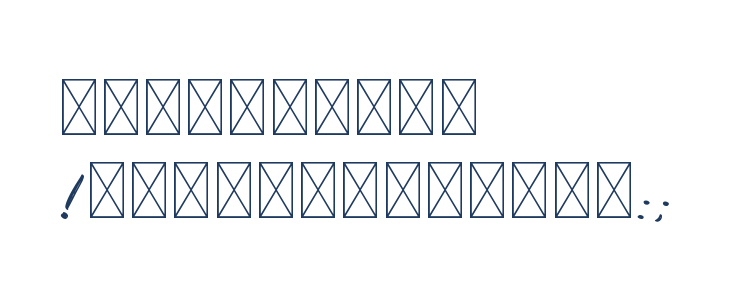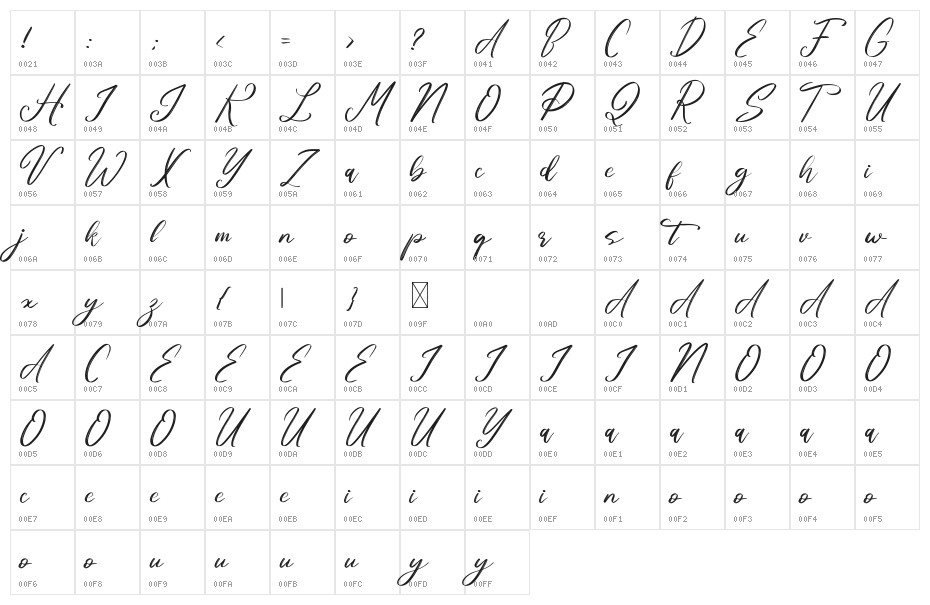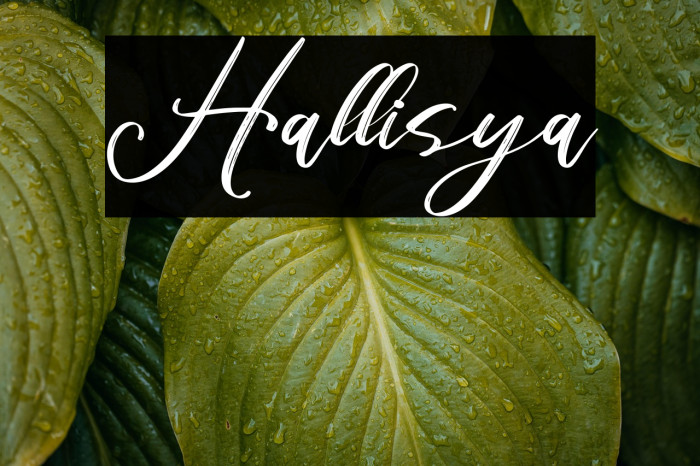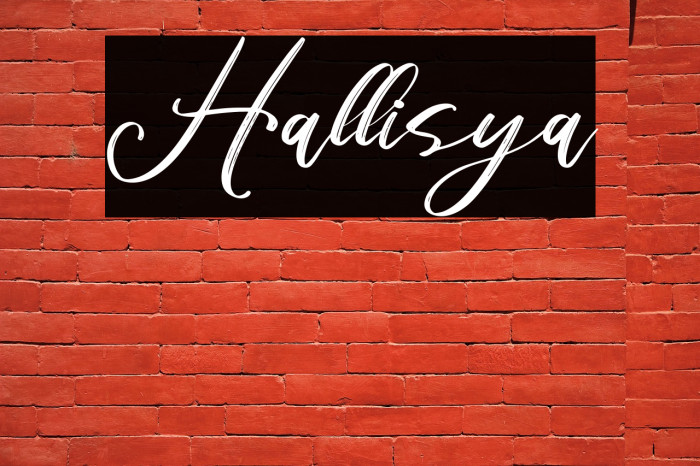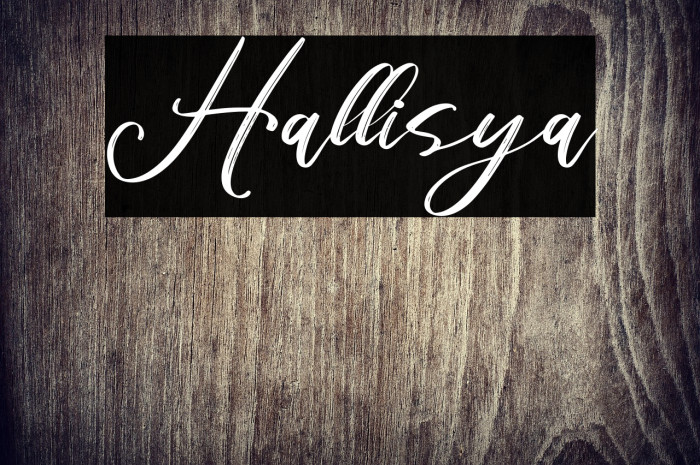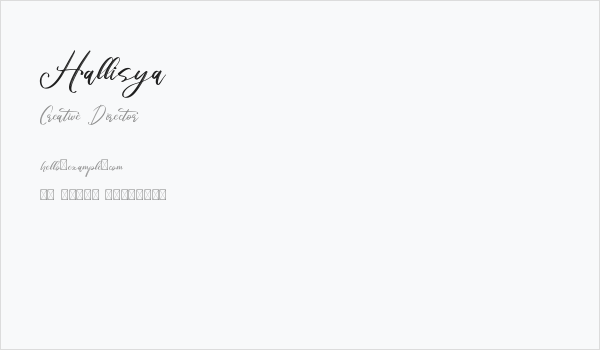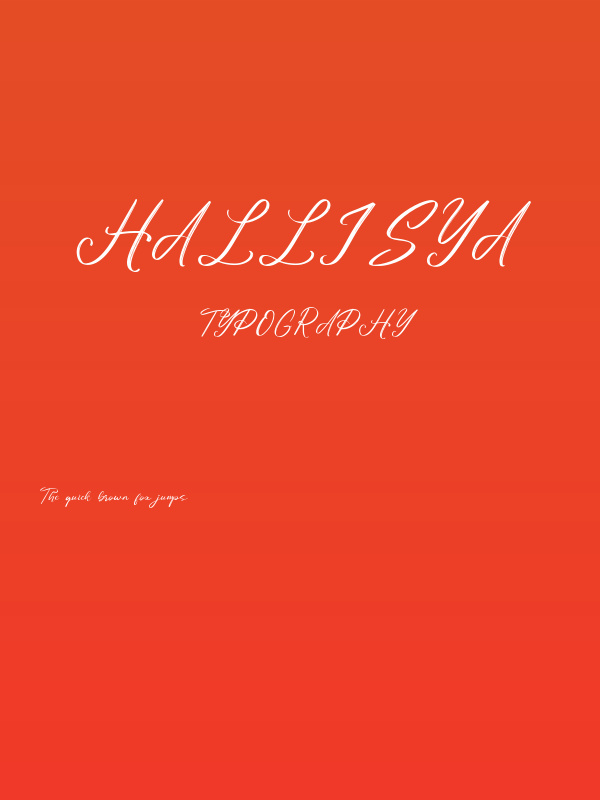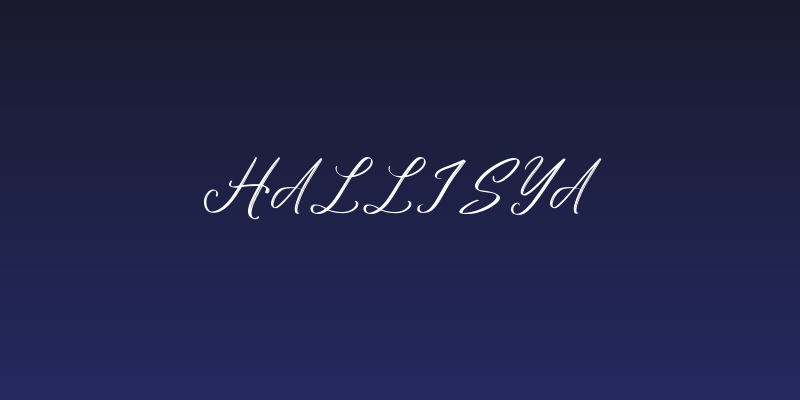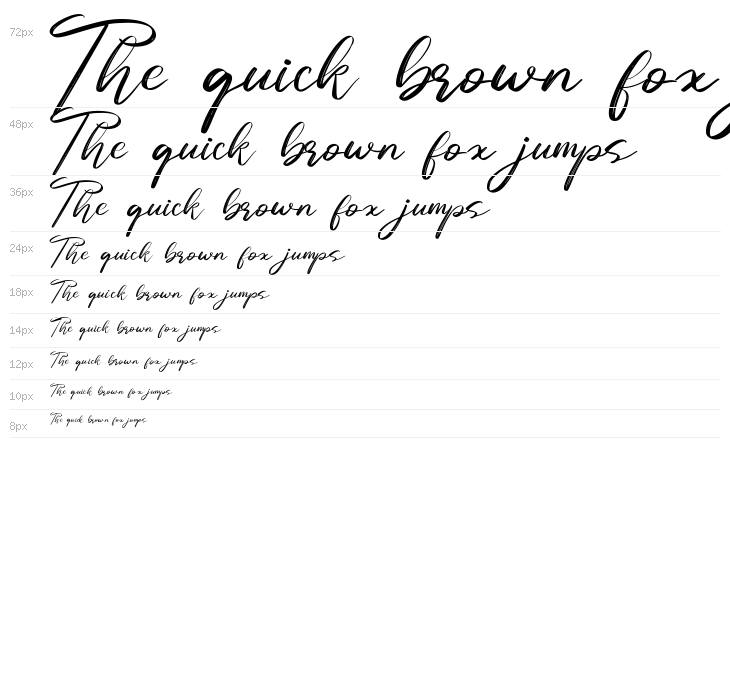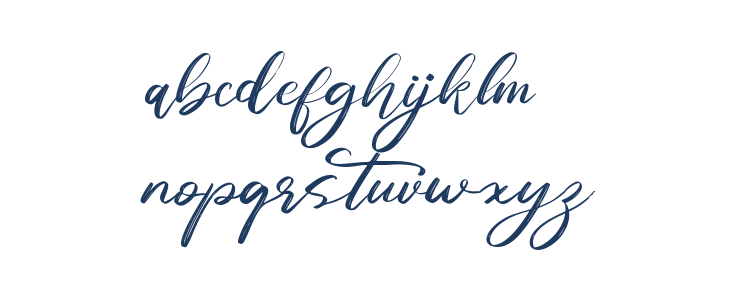
Hallisya Font
Hallisya Description
This elegant script font features a flowing, cursive style with a modern twist. The uppercase letters are gracefully elongated with smooth curves, while the lowercase letters maintain a consistent rhythm and fluidity. The font exhibits a slight slant, enhancing its dynamic appearance. The strokes vary in thickness, providing a medium contrast that adds depth and sophistication. The characters are well-spaced, ensuring readability while maintaining an artistic flair. This font is ideal for projects that require a touch of elegance and creativity, such as wedding invitations, branding, and decorative designs.
| Use Case | Headlines, Logos, Decorative text |
| Proposed Projects | Wedding invitations, branding, decorative designs, greeting cards, and elegant packaging. |